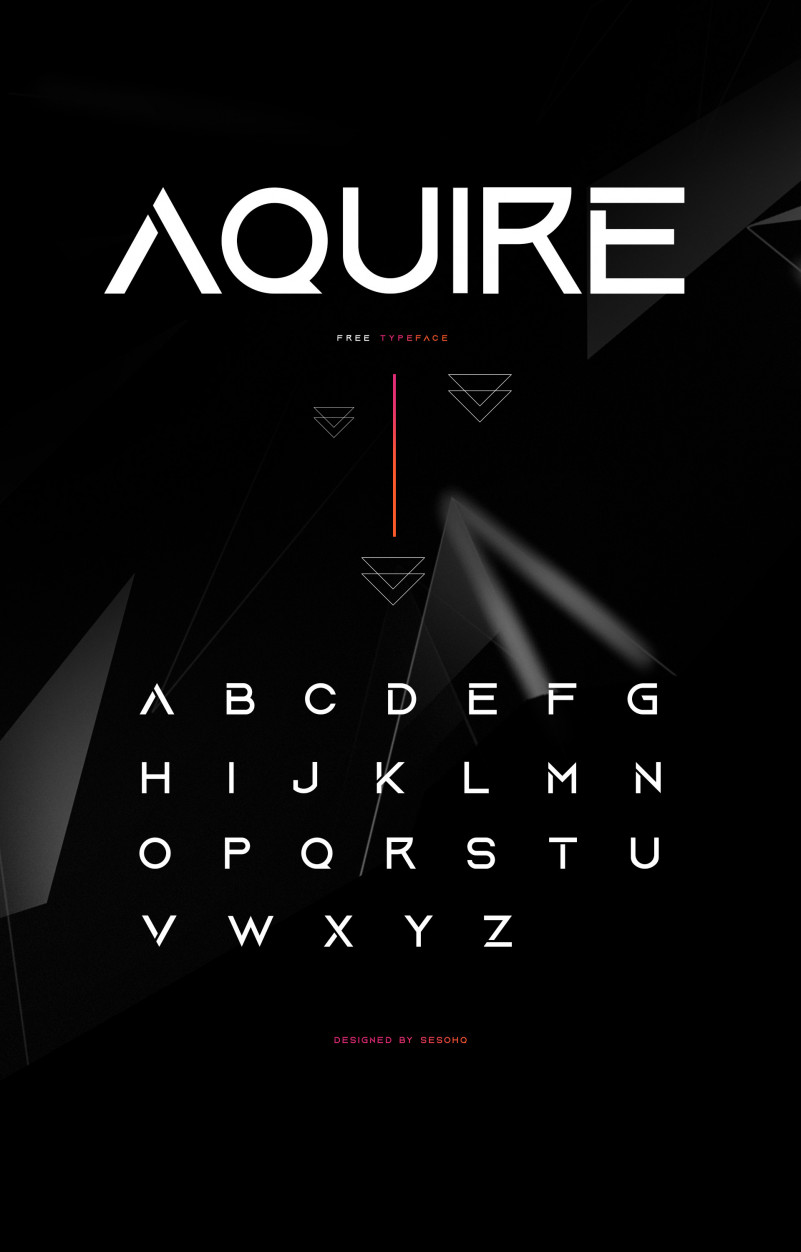
The aquire font was designed by gregory sesohq ortiz. The aquire light font was designed by gregory sesohq ortiz. Aquire bold is the perfect font for all your fun designs.
The Aquire Font Is A Fun And Interesting Typeface By Gregory Ortiz.
High quality design resources for free. Web free fonts for creatives. It has three weights (light, regular, and bold) and consists only of uppercase letters,.
Web Acquire Font Is A 3 Weight Typeface Designed By Gregory “Sesohq” Ortiz.